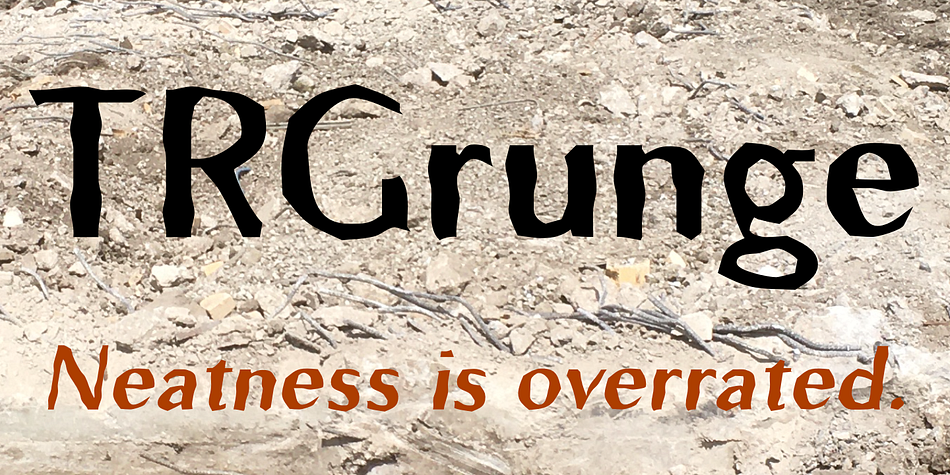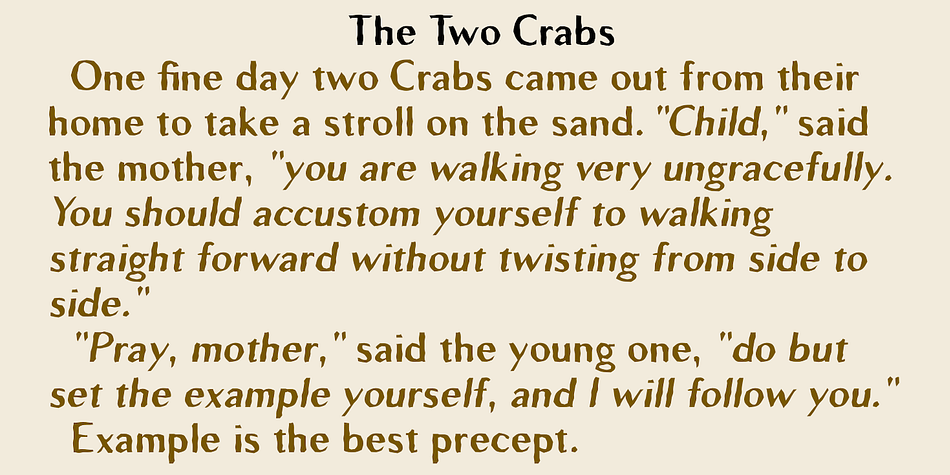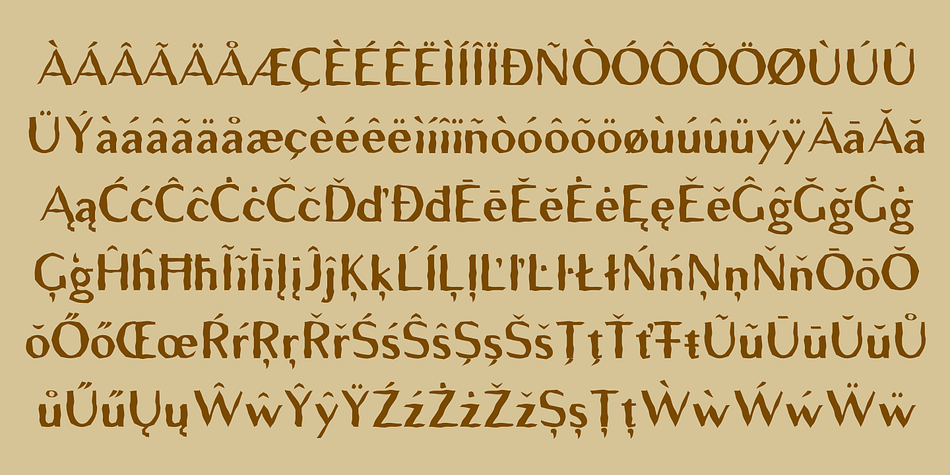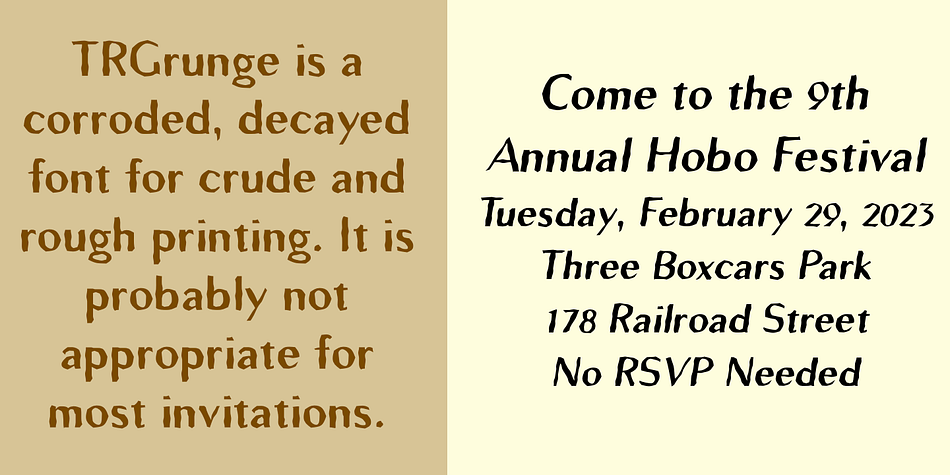
Designed by Robert Schenk, TRGrunge is a display sans and grunge font published by Ingrimayne Type.
As its name suggests, TRGrunge is a rough, grungy font. Derived in 1997 from a 1989 sans-serif face, it was expanded with additional characters in 2021.
Designer | Robert Schenk |